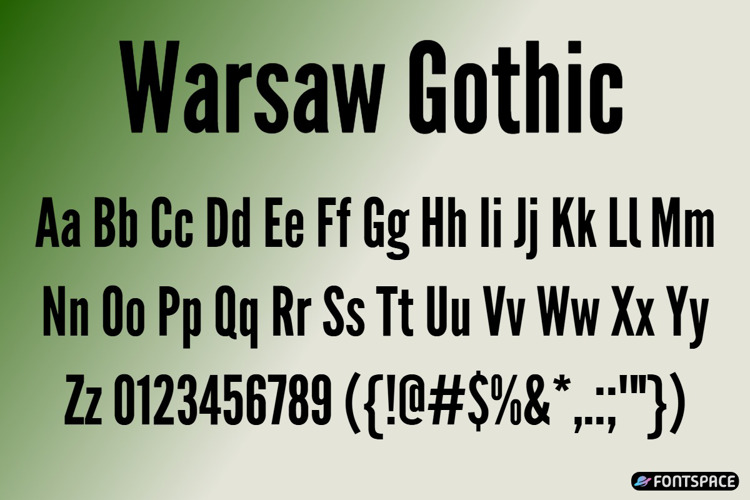
Warsaw Gothic Font
This font has several re-designed and tweaked characters, plus several new weights/styles.
New Woodtype style bold weight and matching italic added.
These look excellent! They look just like the credits for a movie poster!